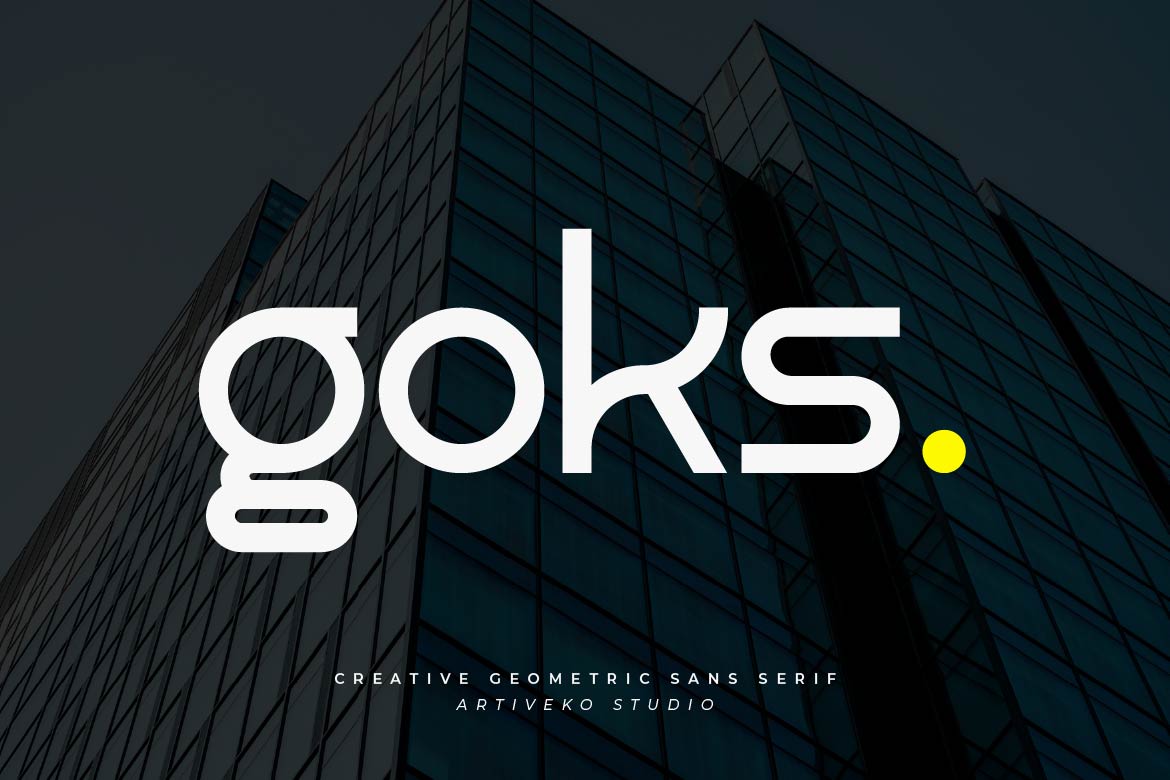
- Goks – Creative Sans Serif Logo Font
Goks is a creative sans serif logo font designed to deliver bold personality and memorable brand presence. With clean structure, balanced proportions, and distinctive character details, Goks provides the perfect combination of professionalism and creativity for impactful logo design.
Ideal for branding, logos, visual identity systems, packaging, social media graphics, and modern creative projects, Goks helps designers create recognizable and versatile brand visuals. Its modern style ensures clarity while maintaining a unique typographic identity that stands out across both print and digital platforms.
Whether you’re building startup brands, creative agencies, or bold product identities, Goks offers a confident and flexible typographic solution.
Goks is not just a font — it’s a modern branding asset built for recognition.